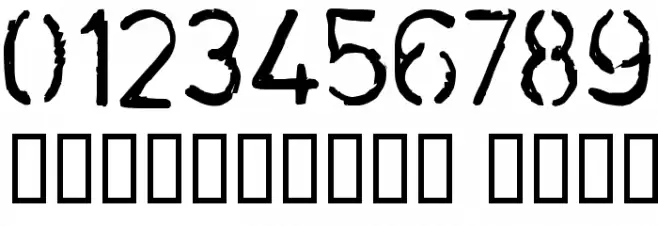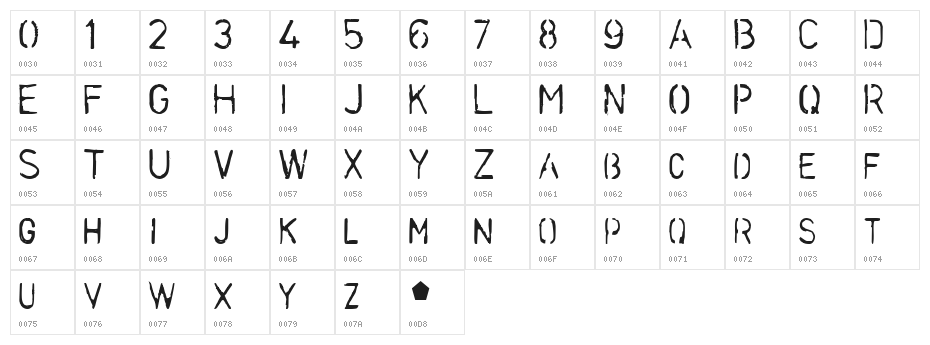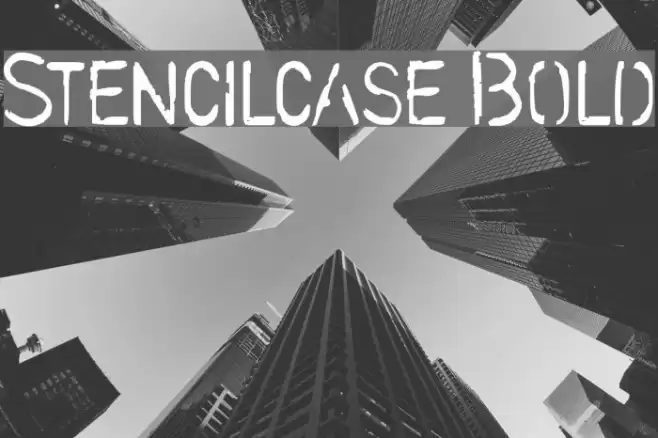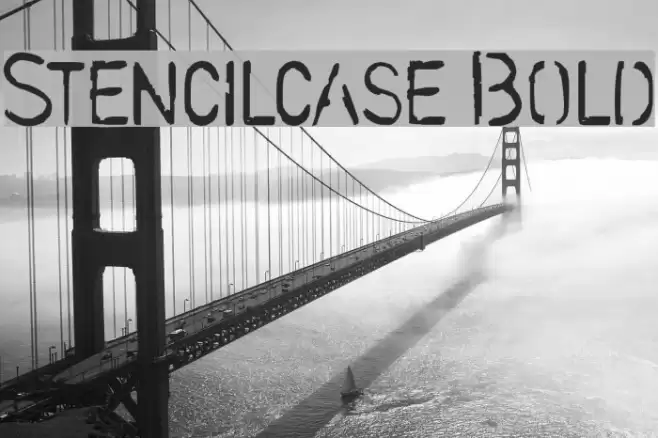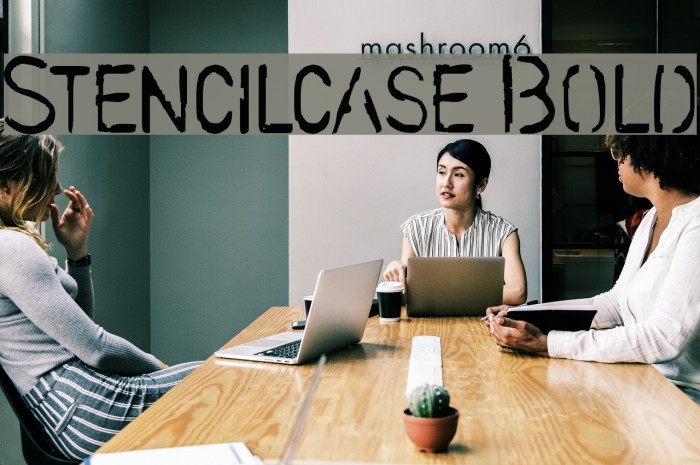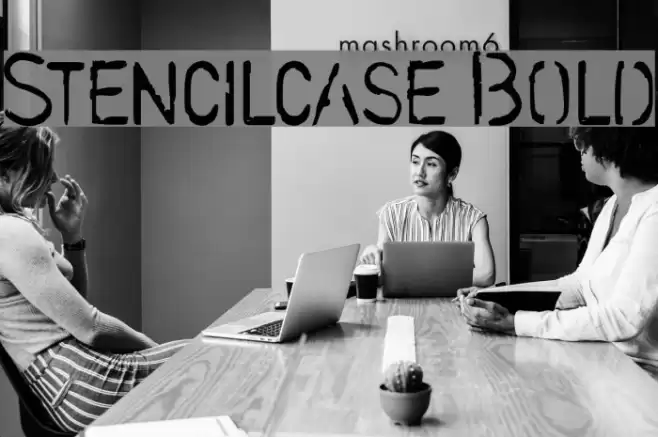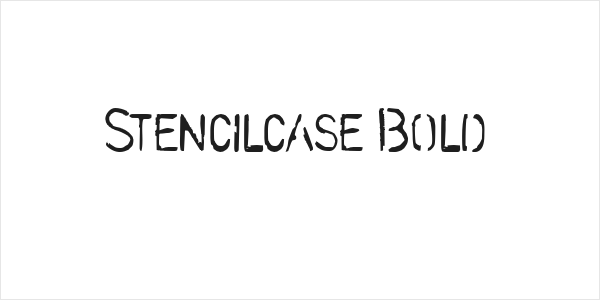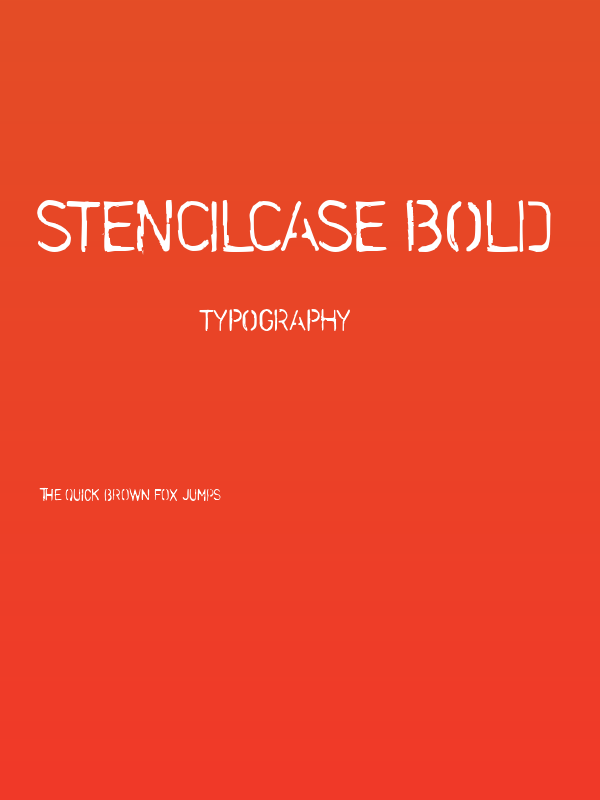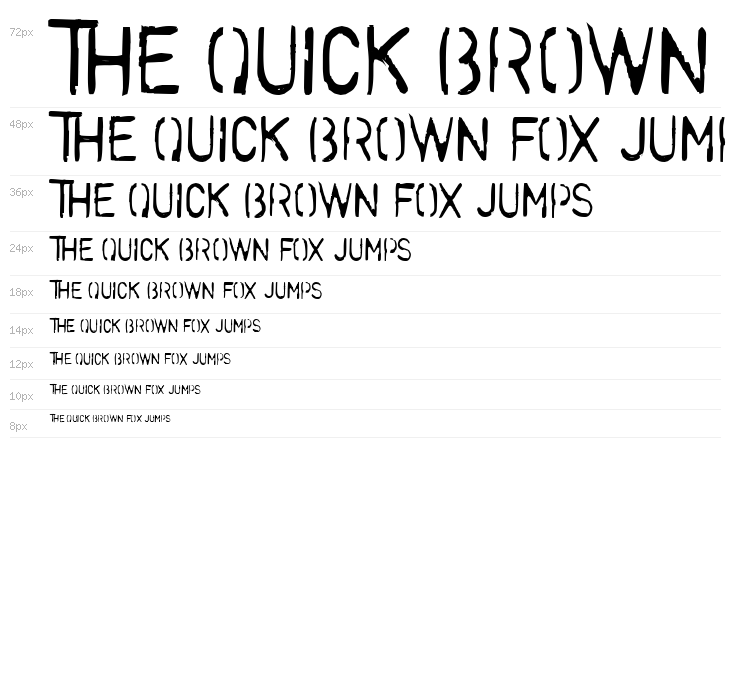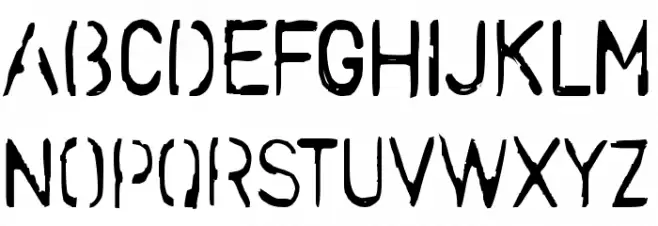
Stencilcase Bold Font
Stencilcase Bold Description
This font features a bold, stencil-like design with distinct breaks in each character, creating a rugged and industrial appearance. The uppercase letters are prominent and assertive, while the numerals maintain a consistent style with the alphabet. The characters have a slightly distressed look, adding to the overall gritty aesthetic. The font's design is reminiscent of military or industrial stencils, making it ideal for projects that require a strong, impactful visual presence. The spacing between characters is relatively tight, enhancing the compact and cohesive feel of the text.
| Overall Style | Industrial, Rugged |
| Proposed Projects | Ideal for military-themed designs, industrial branding, posters, and signage. |